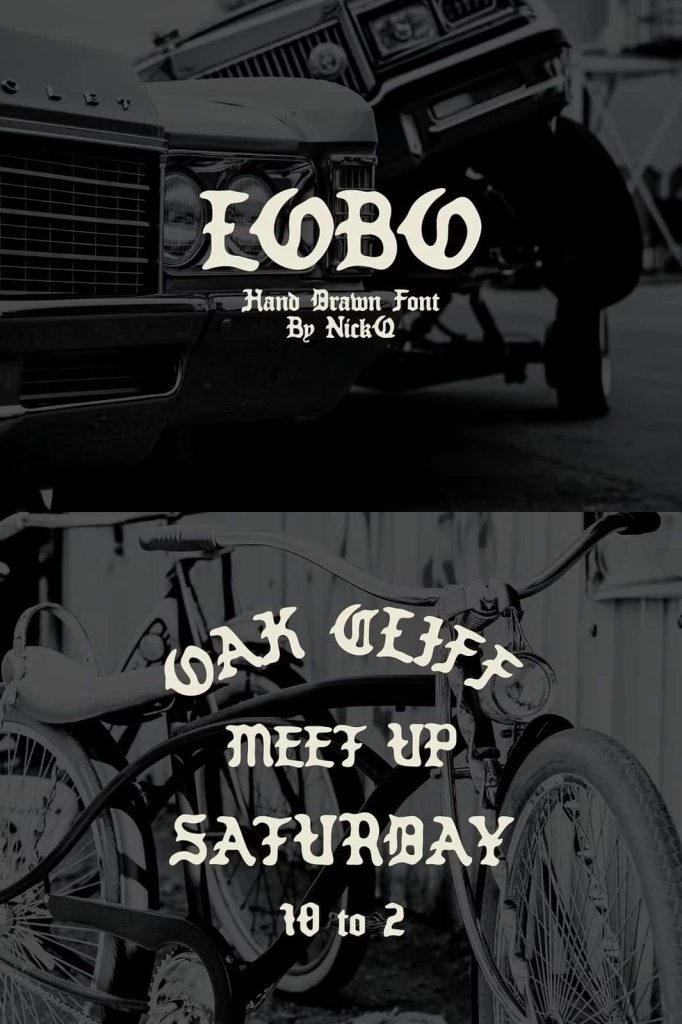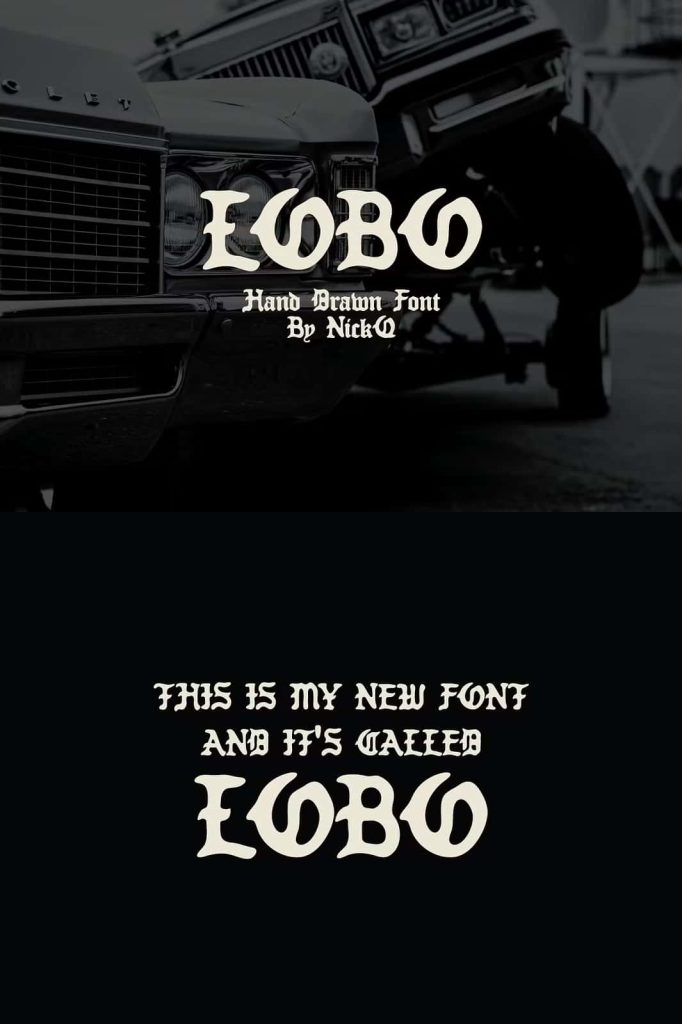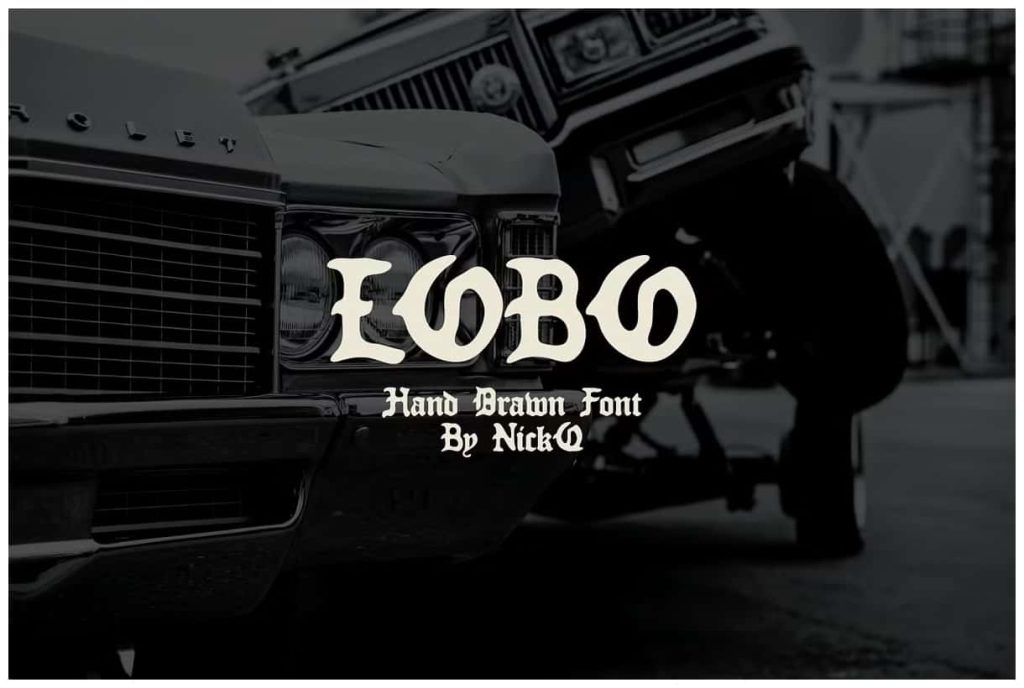
Old English Font: A Bold, Hand-Drawn Typeface with Edgy Character
Old English Font is a striking new typeface inspired by the timeless strength of traditional Old English lettering, infused with the raw authenticity of hand-drawn roughness. This font is designed for creators who want to make a bold statement — perfect for t-shirt designs, logos, posters, or branding that demand a touch of gothic flair and modern rebellion. With its textured strokes and handcrafted feel, it combines historical charm with a rugged, contemporary edge.
A Modern Take on Classic Old English Design
Inspired by medieval calligraphy and blackletter styles, the Old English Font carries a sense of tradition and authority, but it doesn’t stop there. It adds a hand-drawn twist that breathes new life into this centuries-old design tradition. The rough edges and subtle imperfections give each letter a sense of motion and energy, transforming a classic style into something modern and expressive. This blend of old and new makes the font versatile, impactful, and visually unforgettable.
Perfect for T-Shirts, Logos, and Bold Branding
If your goal is to create designs that stand out, Old English Font delivers. It thrives in environments where boldness matters — streetwear logos, edgy apparel, rock band merchandise, tattoo-inspired artwork, or vintage-themed branding. The hand-drawn texture brings depth and attitude, turning simple text into a powerful visual element. Whether you’re printing it on a dark cotton tee or incorporating it into a modern logo, this font adds personality and confidence to every design.
Designed with Authentic Handcrafted Texture
What sets Old English Font apart is its authentic, hand-drawn character. The slight roughness in each stroke reflects the artist’s touch, giving it an organic, lived-in feel that digital perfection can’t replicate. Every curve, serif, and angle is designed with purpose — to convey power, style, and emotion. This makes it an ideal choice for projects that embrace imperfection as part of their identity, from rustic branding to modern streetwear collections.
Complete Character Set for Creative Flexibility
The font includes uppercase and lowercase letters along with a selection of special characters, giving you the freedom to design with consistency and flair. The uppercase letters deliver strong visual impact for titles and headlines, while the lowercase set offers more flexibility and flow for subheadings, slogans, and secondary text. The limited special characters complete the package, making this typeface both functional and expressive.
Ideal for Both Print and Digital Design
Old English Font performs beautifully across multiple mediums — from screen to print. Its bold weight and rugged texture maintain clarity even at smaller sizes, while its detailed design shines in larger applications. This makes it perfect for not just apparel and branding, but also album covers, posters, editorial spreads, and web graphics. Whether used as a headline typeface or a logo mark, it draws attention and leaves a lasting impression.
Why Designers Choose Old English Font
- Bold and Expressive: Delivers impact and authority with a rough, handcrafted edge.
- Timeless Inspiration: Merges historical Old English typography with modern design needs.
- Versatile Use: Ideal for t-shirts, logos, posters, and branding projects.
- Authentic Texture: Hand-drawn details give a warm, organic feel to each character.
- Creative Flexibility: Includes uppercase, lowercase, and essential special characters.
Bring Gothic Energy and Modern Style Together
Old English Font stands at the intersection of tradition and modernity. Its gothic heritage adds strength and structure, while its handmade roughness adds emotion and authenticity. The result is a font that feels timeless yet rebellious — sophisticated yet bold. Designers across fashion, music, and creative industries can use it to elevate their work with unmistakable character and intensity.
Elevate Your Designs with Old English Font
Whether you’re designing a t-shirt line, building a brand with attitude, or creating poster art that demands attention, Old English Font brings your vision to life. Its dynamic texture, bold shapes, and handcrafted details make it a versatile tool for designers who want to blend vintage elegance with modern power. Step beyond ordinary typography — embrace the strength, style, and soul of Old English Font in your next creative project.